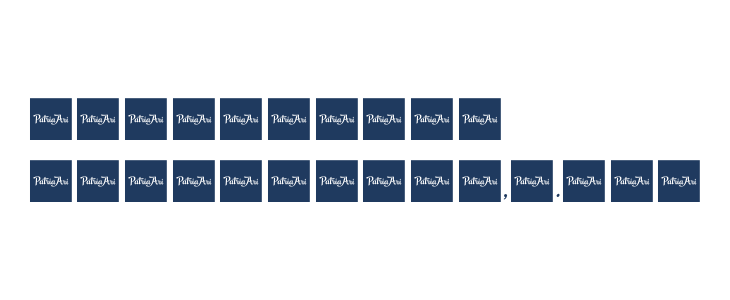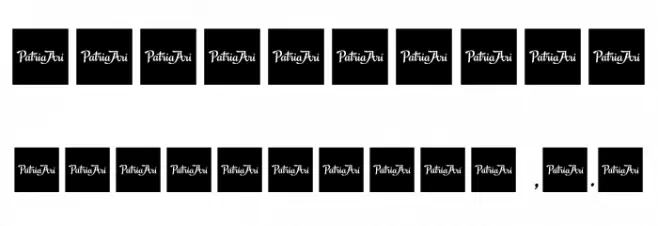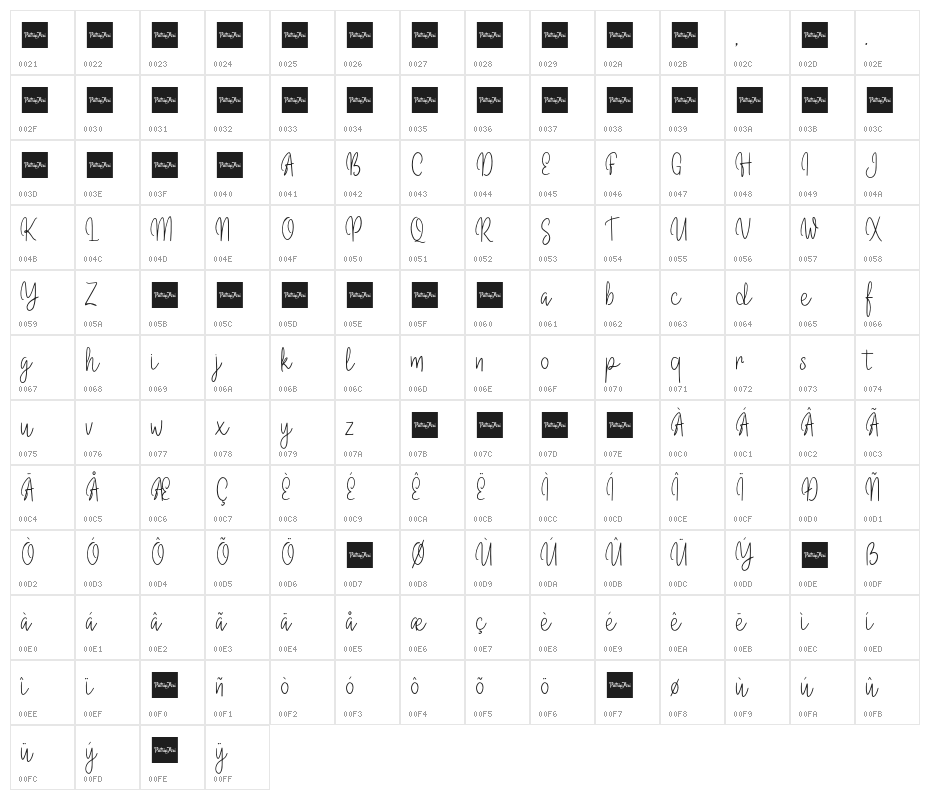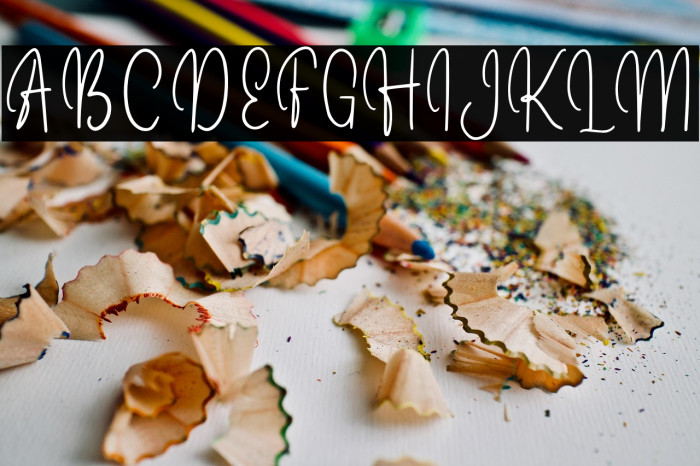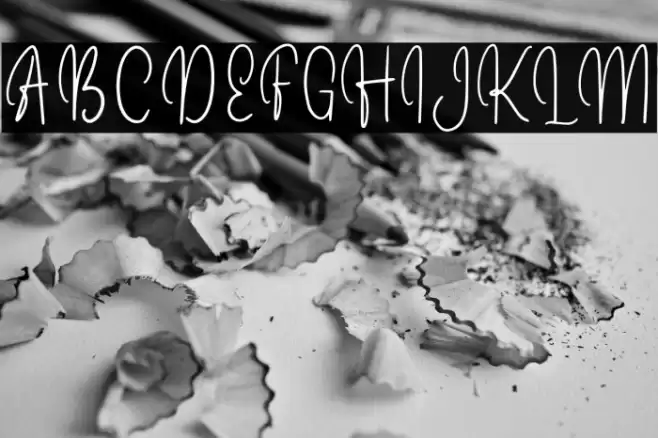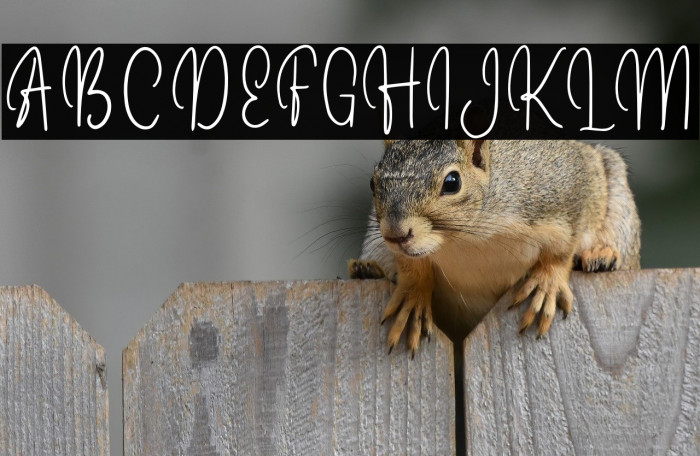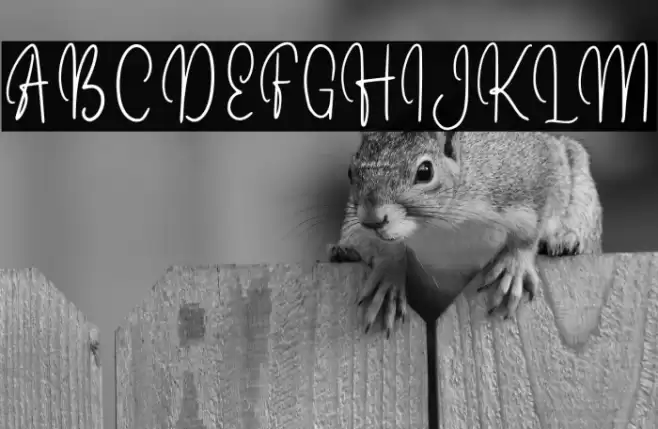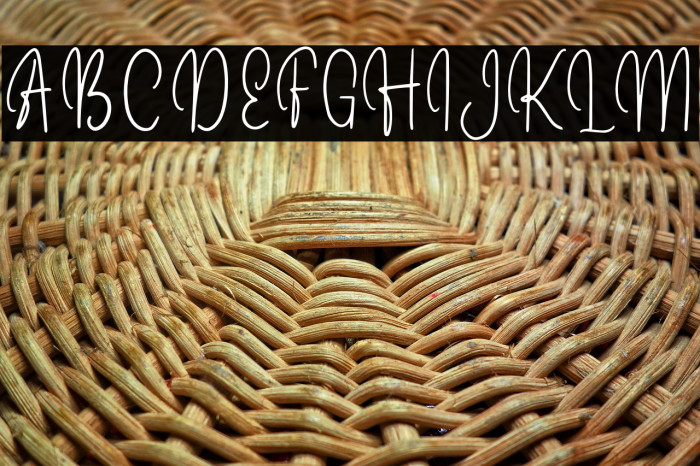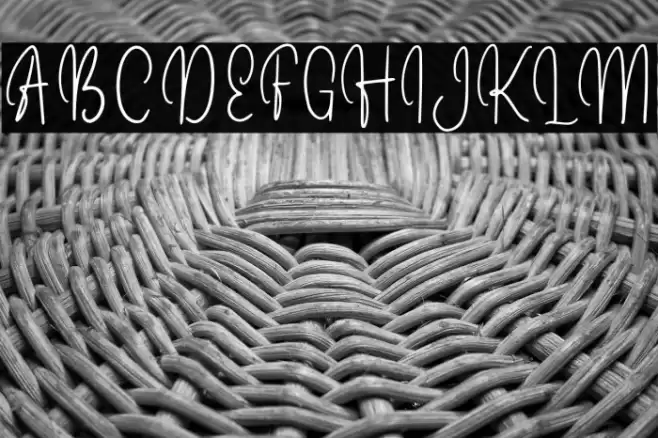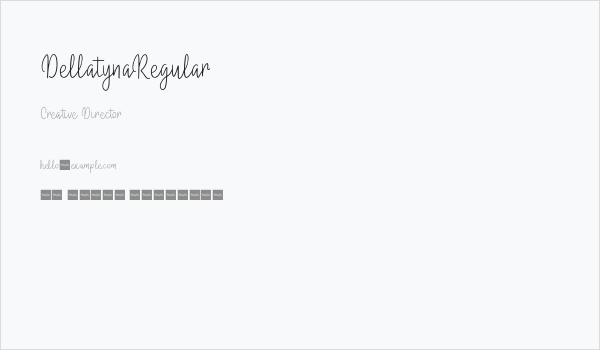
DellatynaRegular Font
DellatynaRegular Description
This font features a flowing, cursive style with elegant, elongated strokes that give it a sophisticated and artistic appearance. The uppercase letters are tall and graceful, with a slight slant that adds to the fluidity of the design. The lowercase letters maintain a consistent style, with smooth curves and connections that enhance readability while preserving the decorative nature. The font includes numerals and a selection of special characters, all designed to complement the overall aesthetic. Its hand-drawn quality makes it ideal for projects that require a personal touch.
| Proposed Projects | Ideal for wedding invitations, greeting cards, branding, and logo design where a personal and artistic touch is desired. |